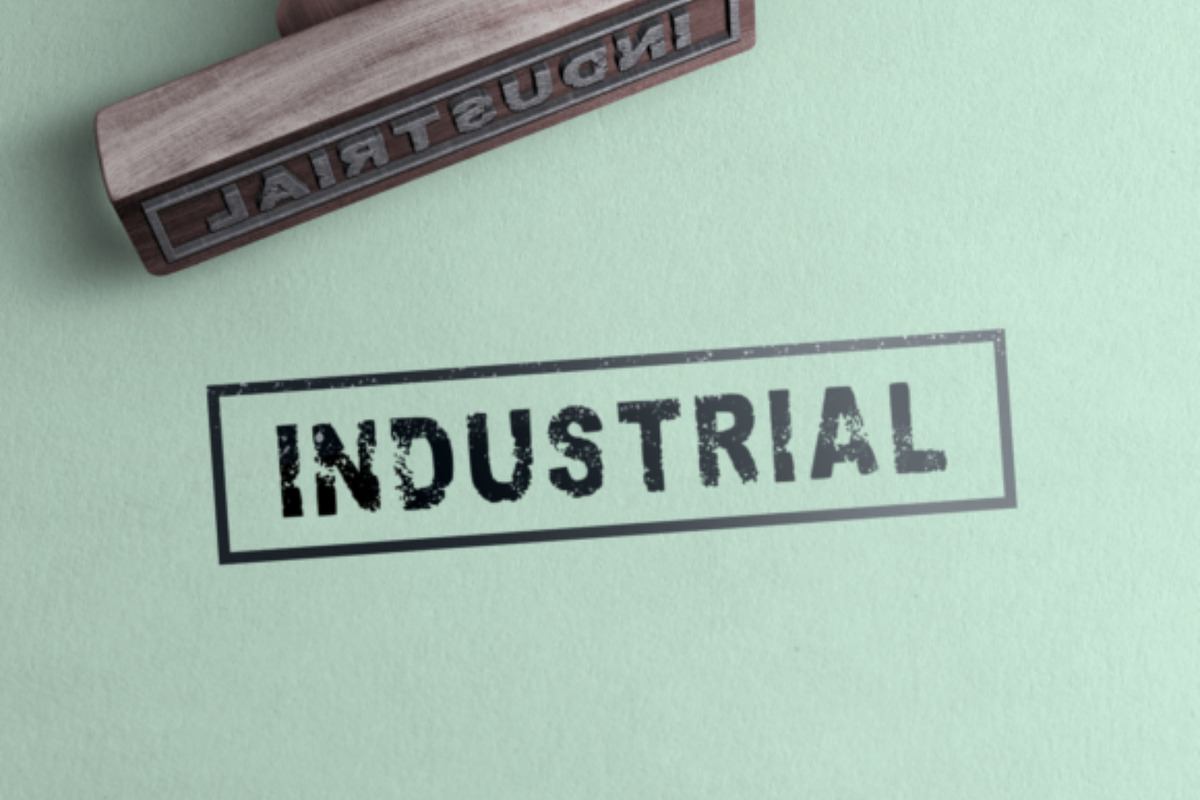
Industrial Font | Display Font Free Download
The Industrial Font | Display Font Free Download is a bold, modern typeface inspired by industrial design elements. With its strong lines and geometric structure, this font is perfect for creating powerful and eye-catching logos, posters, headlines, and branding materials. Whether you’re working on a tech project, urban branding, or any design that requires a robust and contemporary look, Industrial Font offers a sleek, modern style.
Industrial Font | Display Font Free Download is ideal for designers looking for a typeface that exudes strength and modernity. Perfect for creative, tech, or urban-themed projects, this font will make your designs stand out with its bold, industrial look. Download it today and bring your projects to life with Industrial Font’s dynamic design!